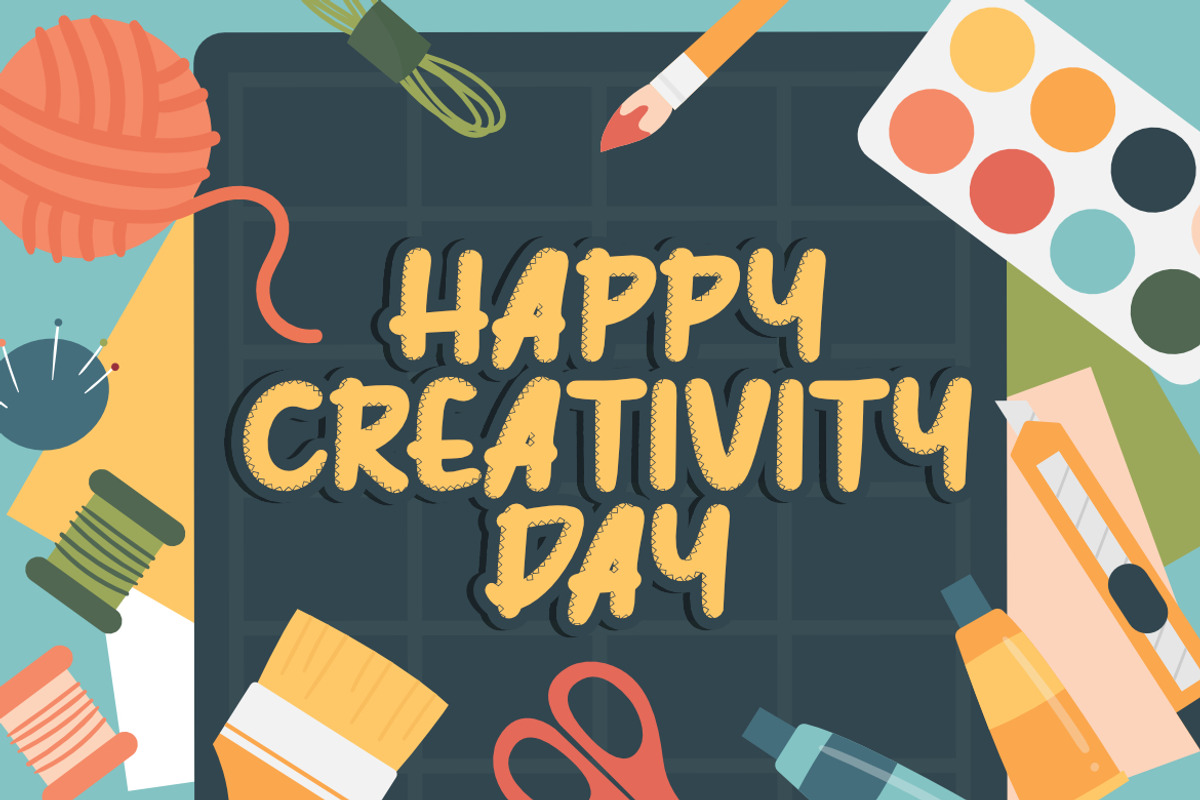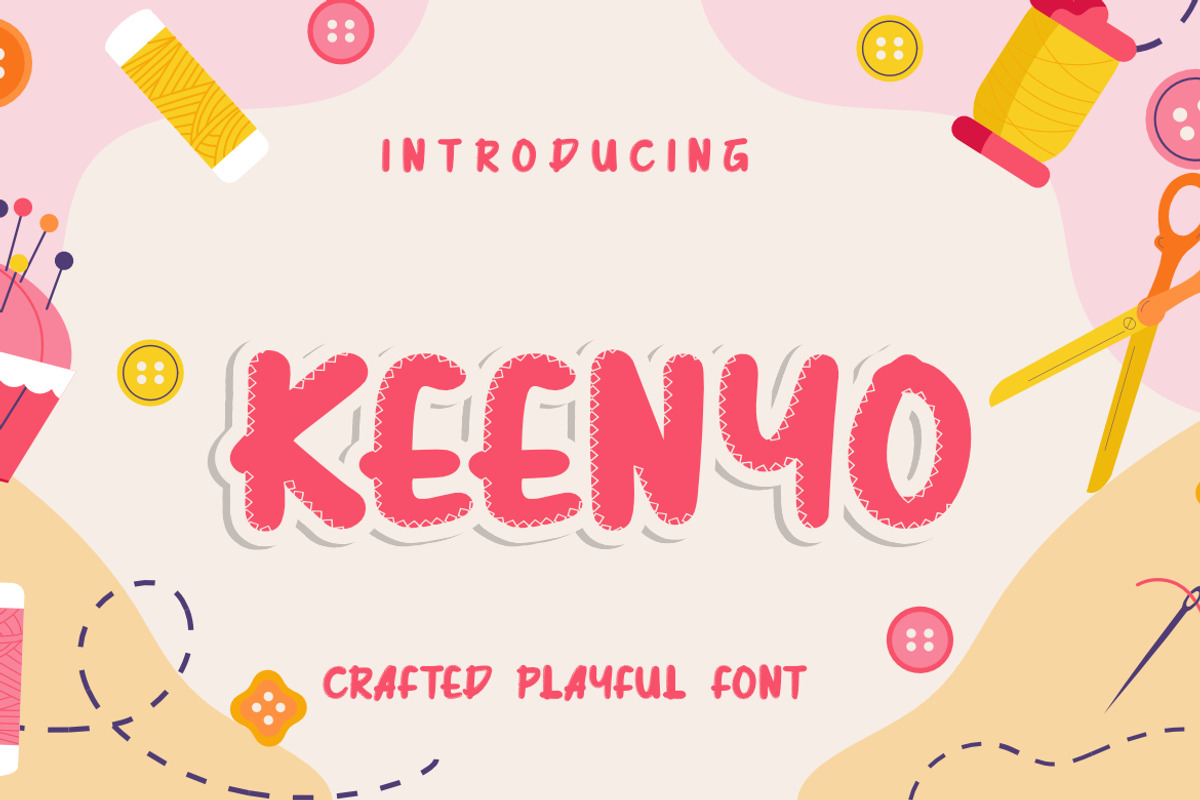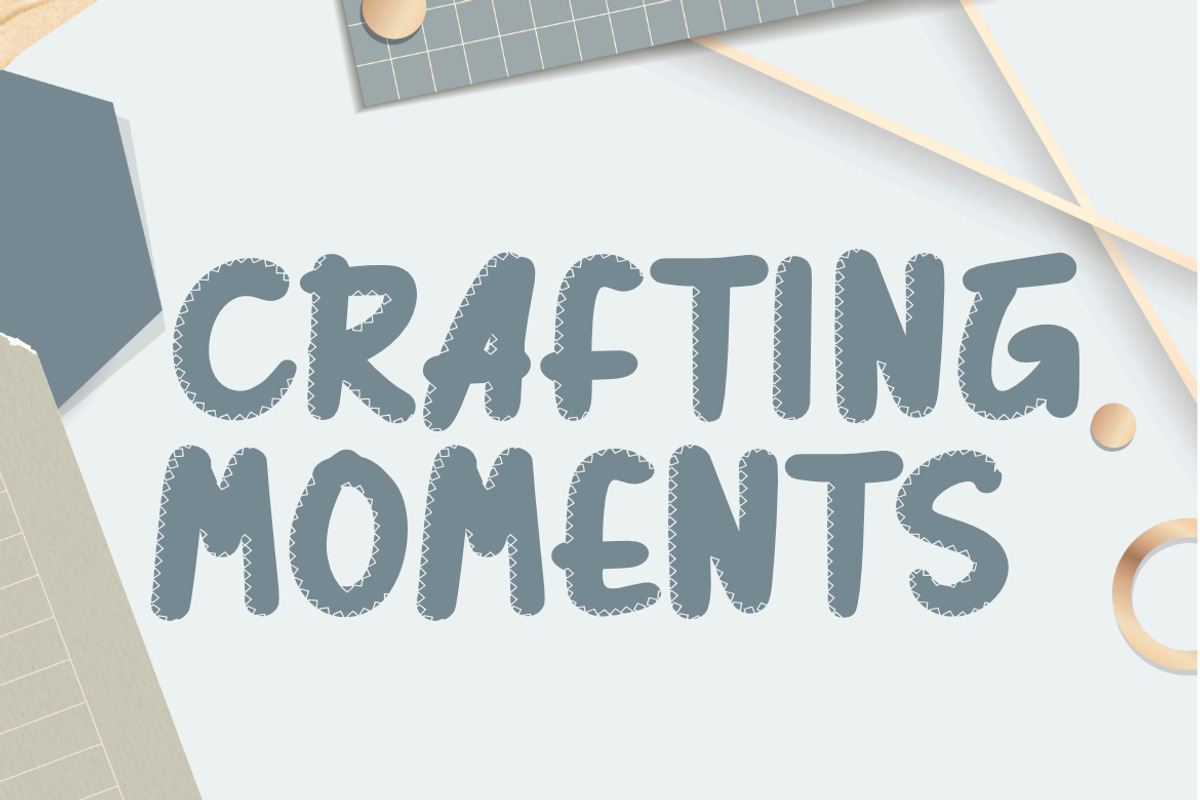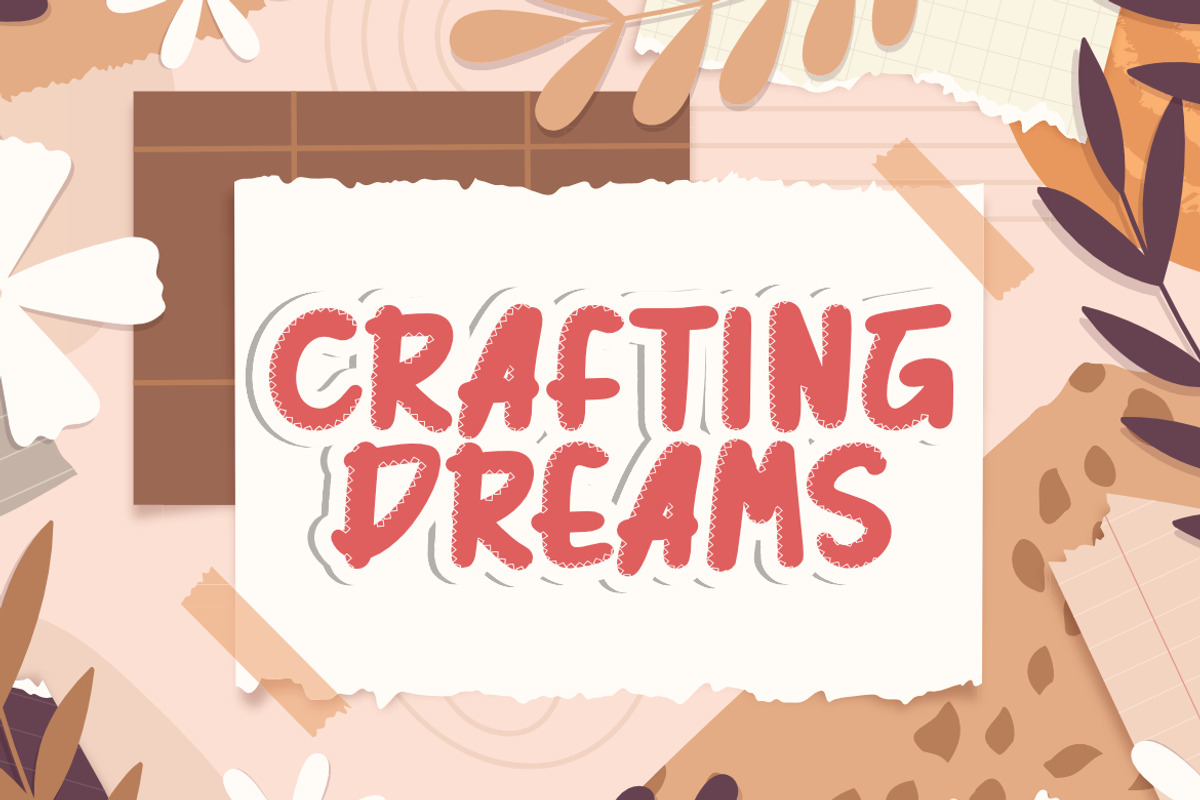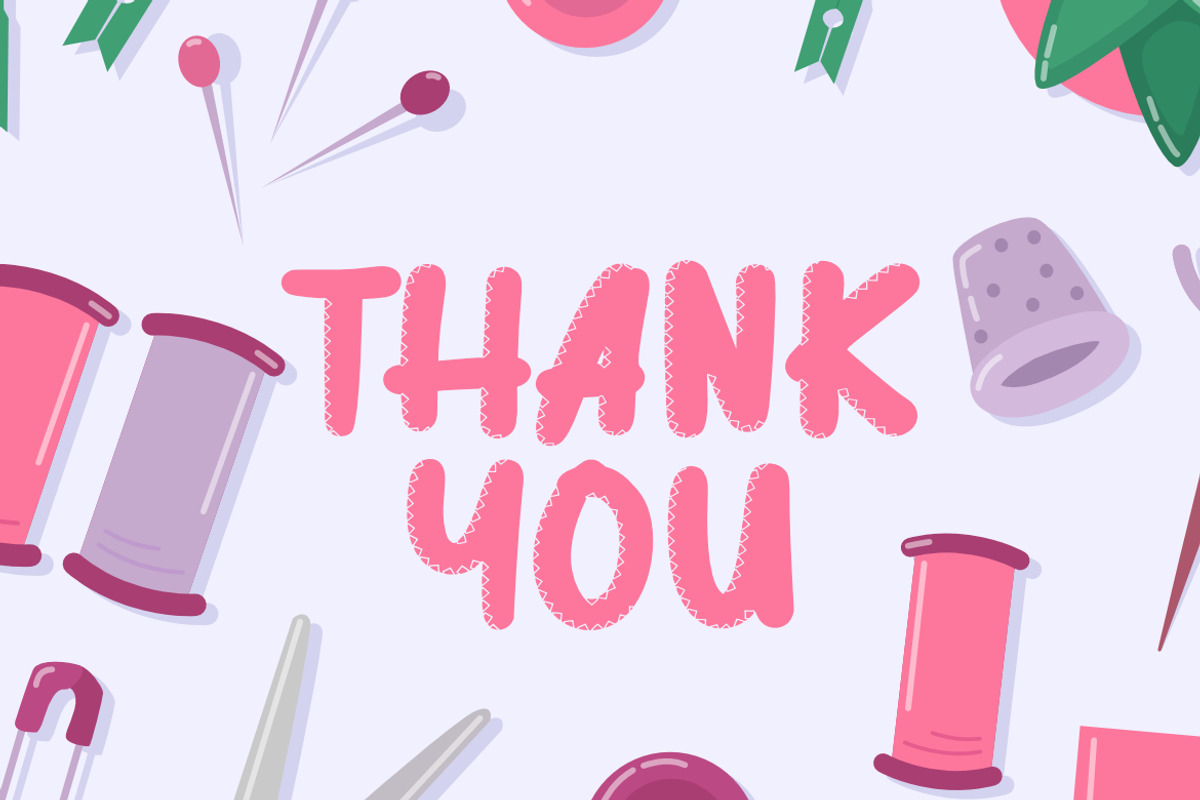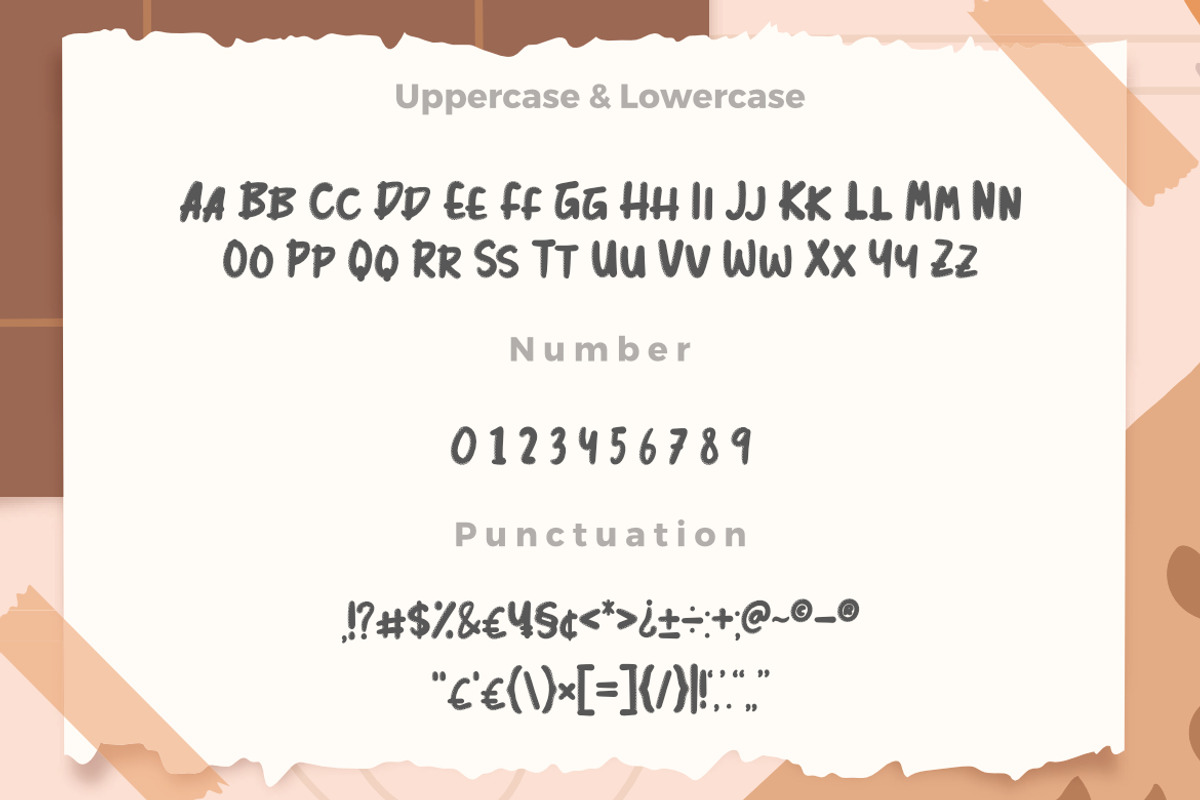
Keenyo Crafted Playful Font
Keenyo Crafted Playful Font, This font is made with a high premium quality level which you can use as flyers, quotes, posters, banners, packaging, merchandise, logotypes and much more.